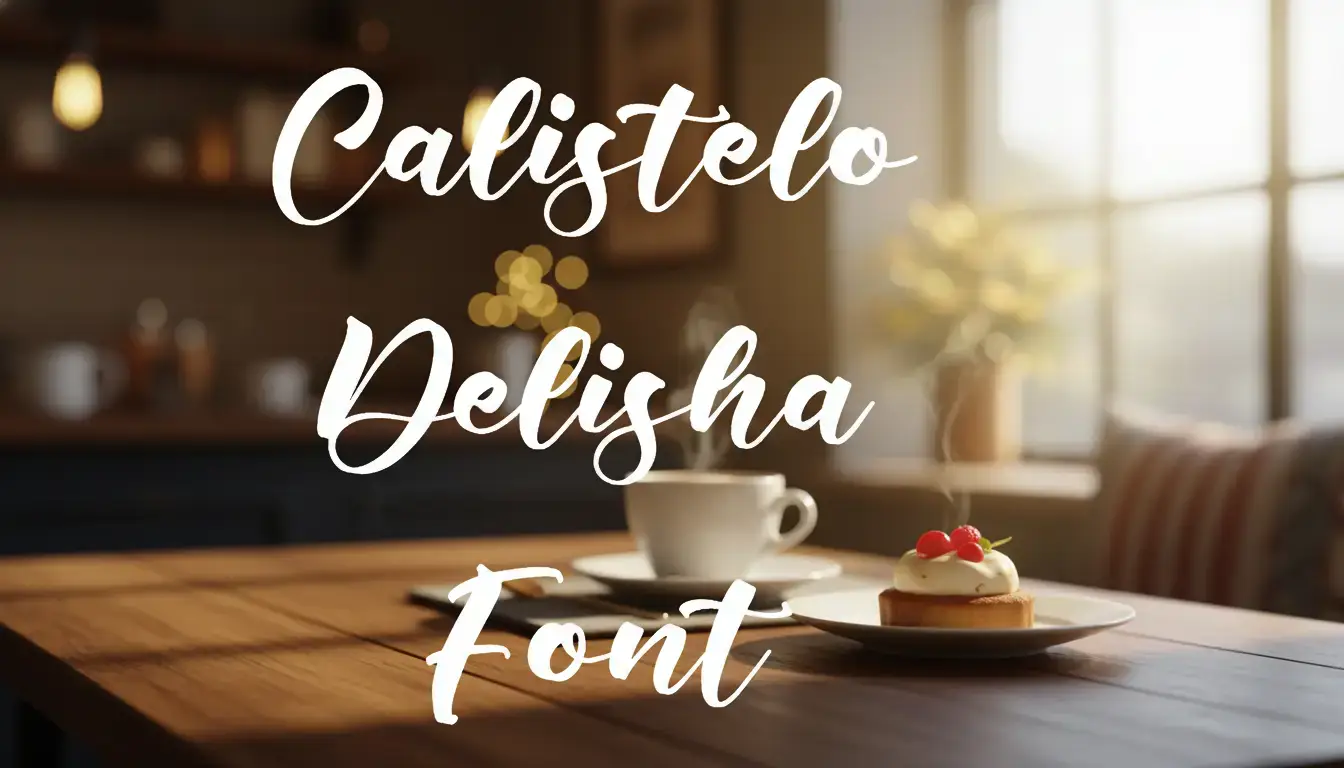
Calistelo Delisha Font
Calistelo Delisha
Calistelo Delisha is a script font designed by Glorytype. Its flowing, pen-made letters give names and short phrases a personal, polished look. It's a free download, and you can try it with your own text in the preview above first.
What You Can Type With Calistelo Delisha
You get every letter from A to Z in both cases and all the numbers from 0 to 9, which means Calistelo Delisha can handle full sentences, dates and prices. Everyday marks like &, !, ? and @ are there too. Thanks to its accented letters, it also works for Spanish, French, German, Portuguese and Italian, not just English.
Where Calistelo Delisha Works Best
Think of Calistelo Delisha for wedding invitations, logos and signature-style headings. Script fonts read best in short bursts, so keep it to names, titles and one-line quotes. Skip all caps: script capitals are drawn to start a word, not to fill one.
Does Calistelo Delisha support accented letters?
Yes. Calistelo Delisha includes the accented letters needed for Spanish, French, German, Portuguese and Italian, so it works for more than just English.